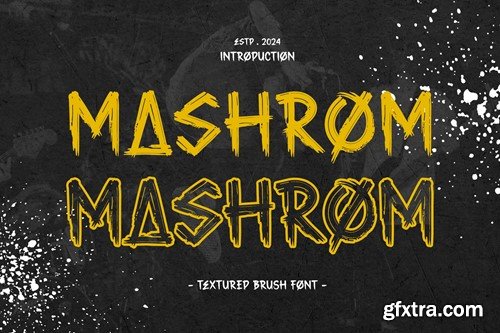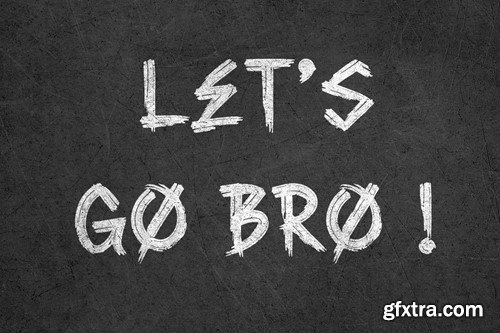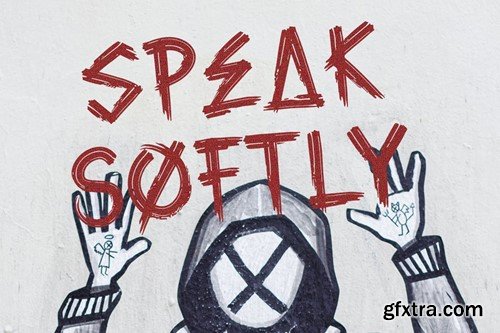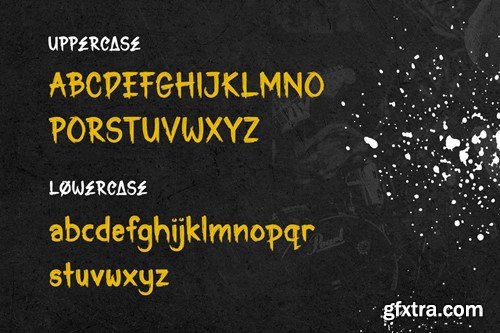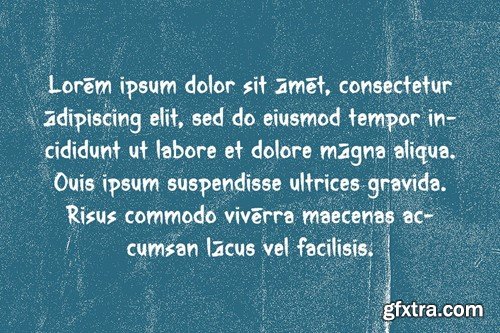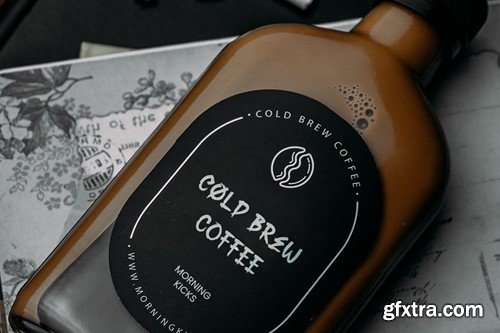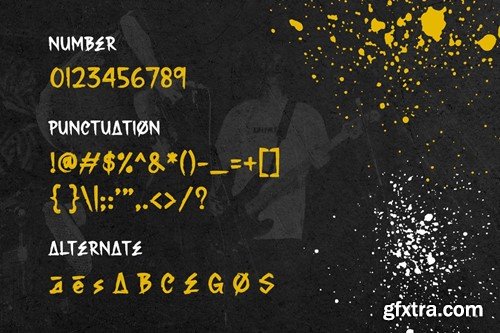
MASHROM - Textured Brush Font
MASHROM is a unique display typeface perfect for titles, large text, branding, logotypes & graphic design purposes such as posters, pamphlets, and advertisements. This letter font can be a great choice for creating amazing logos, promotional content, and marketing presentations that can bring uniqueness and freshness at its best. FEATURES TTF/OTF/WOFF Uppercase and Lowercase letters Numbering and Punctuations Alternate Support Adobe Illustrator, Adobe Photoshop, Adobe InDesign, also works on Microsoft Word For buyers, thank you for using our font. We hope our work can help you create creative ideas.